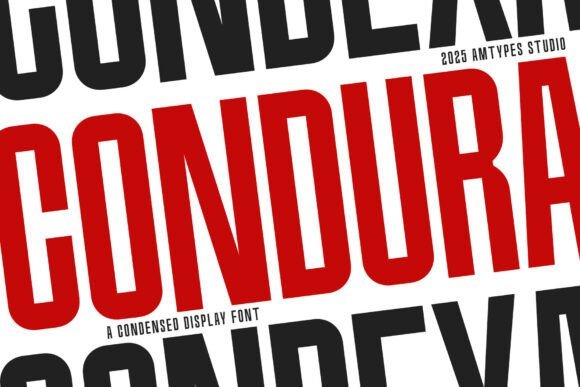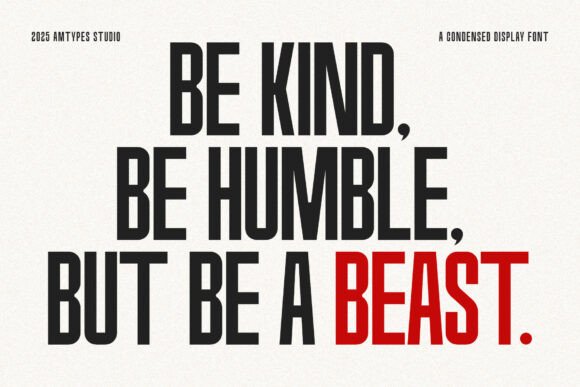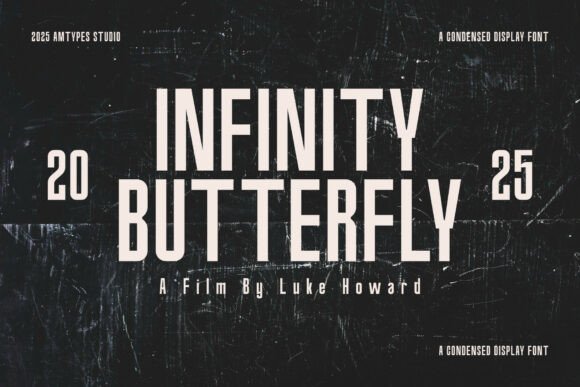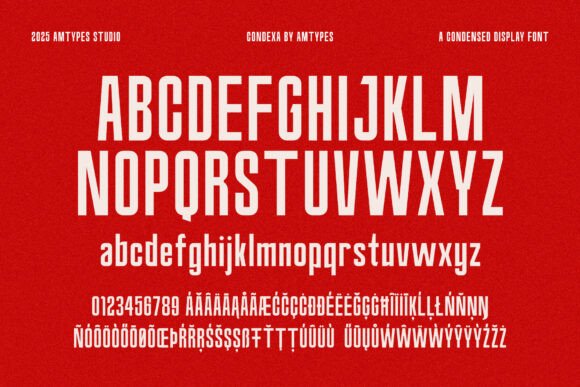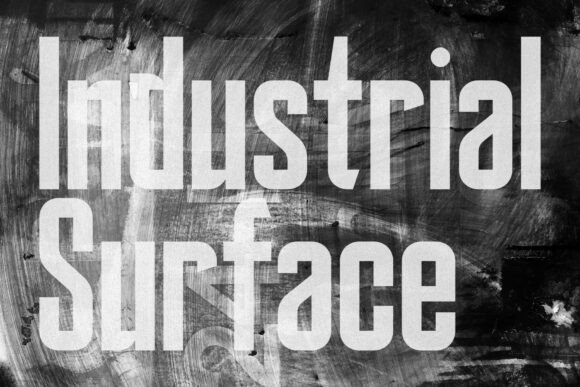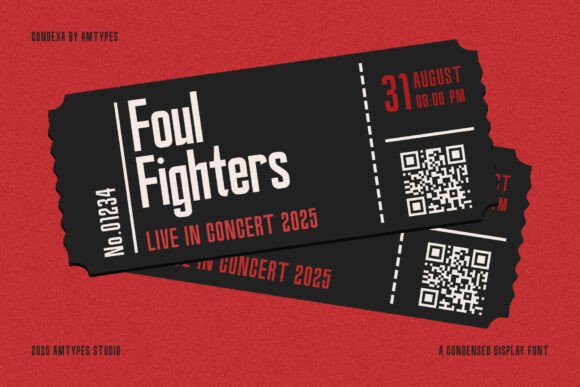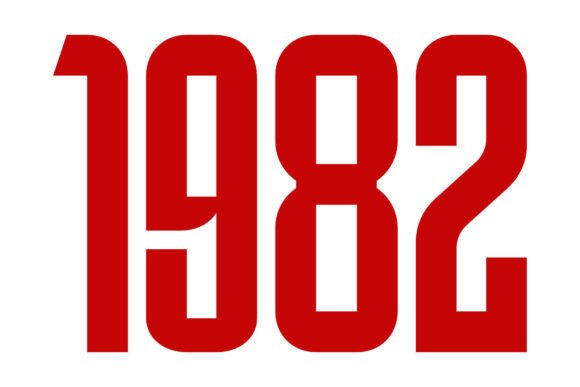
Unlocking Visual Impact with the Condura Font
Have you ever been stuck on a design project, searching for the perfect font to capture the essence of your idea? I know I have. There’s nothing quite like the thrill of stumbling upon a typeface that perfectly embodies the mood and tone you’re aiming for. For me, that moment came when I discovered the Condura Font – a bold and tightly-crafted condensed display font designed to make a striking visual impact.
Condura Font is more than just a font – it’s a tool for designers looking to create eye-catching visual compositions. With its tall proportions, sharp geometry, and industrial character, this typeface is perfect for a wide range of applications, from posters and movie titles to editorial layouts and branding. By incorporating the Condura Font into your design projects, you can add clarity, attitude, and edge to your work.
Condura Font Key Features
- Font Family: Condura Font is a sans-serif font family designed for optimal readability.
- Unique Characteristics: Condura Font features a distinctive geometric shape and a clean, modern aesthetic, making it ideal for corporate branding, digital products, and publications.
Designer Review: Condura Font
Overall, I found the Condura Font to be a solid addition to any design project. Here’s a breakdown of its strengths and weaknesses:
- The Condura Font has a unique and modern feel to it, making it perfect for contemporary design projects.
- Its bold and playful personality shines through in headings and titles, adding a touch of sophistication.
- The font is highly legible, even at smaller font sizes, making it ideal for body text and paragraphs.
- The font’s versatility makes it suitable for a wide range of industries and applications.
- The Condura Font may not be the best choice for traditional or formal design projects, as its modern feel may clash with the desired aesthetic.
- The font’s bold style can sometimes be overwhelming, making it difficult to read in large blocks of text.
- The font may not be fully optimized for certain languages or character sets, which could lead to display issues.
The Condura Font is a great addition to any modern design project, offering a unique and stylish feel. While it may have some limitations, its strengths far outweigh its weaknesses. With the right use and context, the Condura Font can be a powerful tool in any designer’s arsenal.
Tip: Use Condura Font to add a touch of elegance to your Canva designs, especially for headings and titles.
Tip: Use Condura Font to create custom typography for your Adobe projects, especially for logos and branding materials.
Tip: Use Condura Font to add a touch of sophistication to your PowerPoint or Word documents, especially for headings and titles.
Condura Font is ideal for:
- Headings and titles in designs and documents.
- Logos and branding materials.
- Custom typography for special